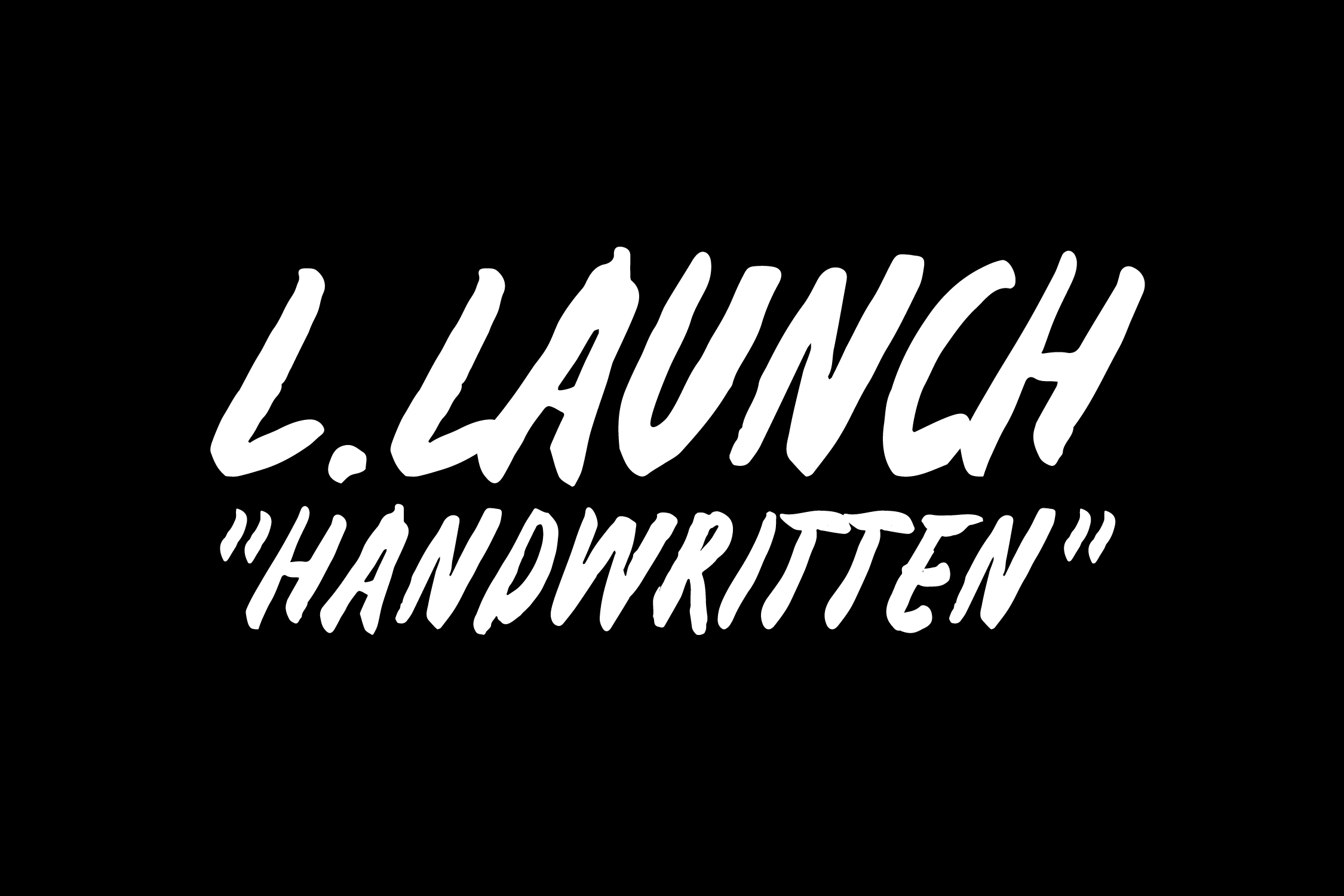
London Launch
LONDON LAUNCH is a handwritten energetic brush pen unicase font with vintage vibes, designed with love and care for amazing projects. It's great for social media, headlines, large-format print, editorial, branding, posters, fashion designs and websites — it definitely grabs attention and makes a powerful accent at your design work.